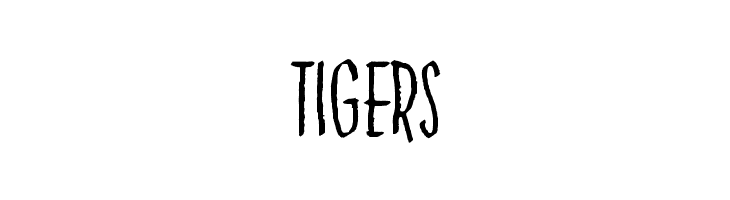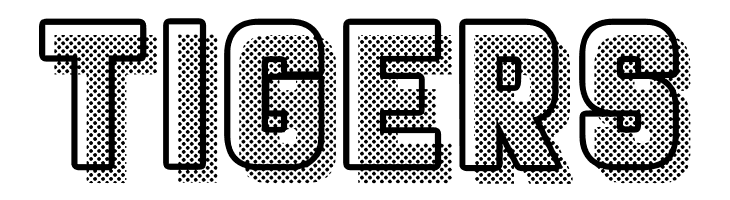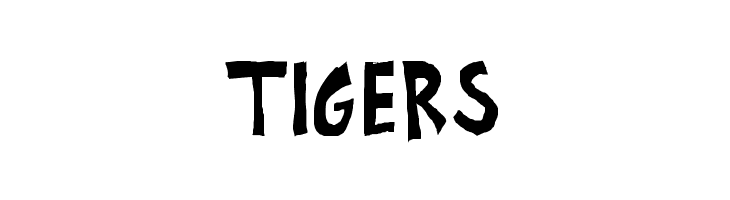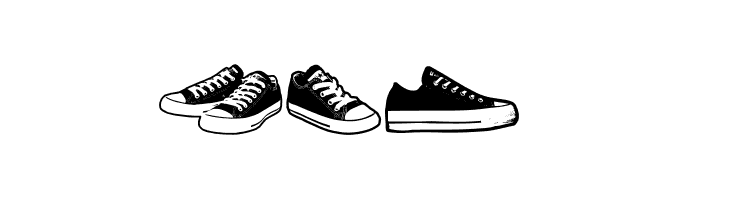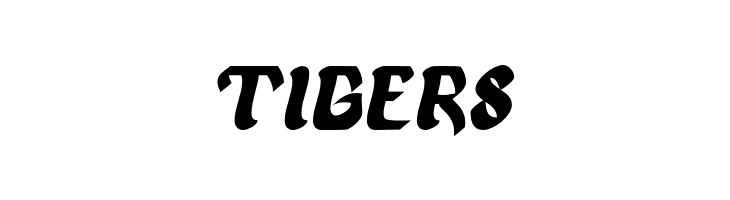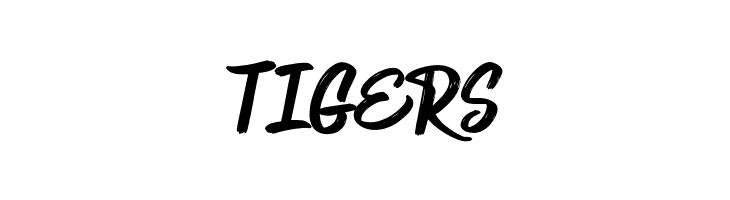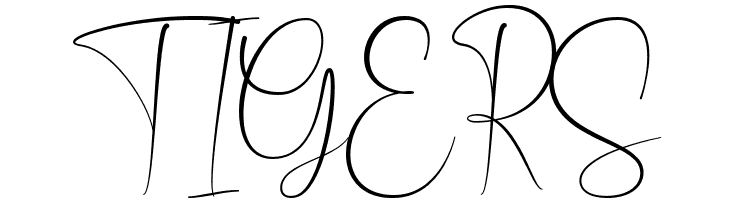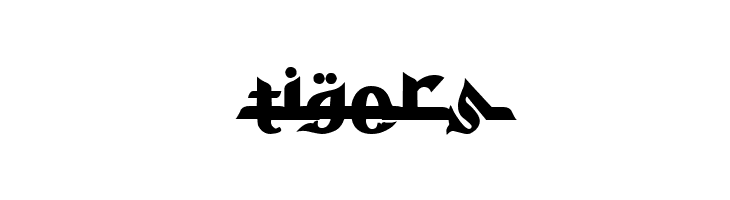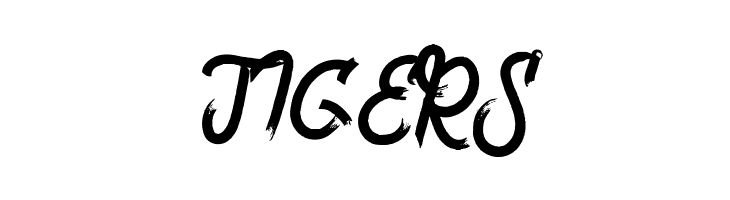
A bold, decorative font with modern and traditional influences.
A bold, expressive brush script font with a modern, handwritten style.
A whimsical font with heart-shaped elements, perfect for romantic designs.
A bold, distressed font with a torn, rugged appearance.
A bold, distressed font with a vintage, rugged texture.
A bold, geometric font with a futuristic and edgy design.
A modern, dot-based font with a digital, geometric style.
A modern, dot-based font with a playful and digital aesthetic.
A playful, rounded font with bold, smooth curves and consistent spacing.
A bold, rugged font with a hand-drawn, dynamic style.
A bold, jagged, and dynamic font with a hand-cut appearance.
A bold, italicized font with a dynamic, brush-like style.
A bold, angular, and italicized font with a dynamic, edgy style.
A playful, handwritten font with fluid, interconnected strokes and a whimsical charm.
A chaotic, hand-drawn font with a graffiti-like style.
A bold, hand-drawn font with a sketch-like, dynamic appearance.
A bold, brush-style font with dynamic and expressive strokes.
A bold, brush-style font with dynamic, hand-drawn strokes.
A bold, distressed font with a cut-out, ransom note style.
A hand-drawn, playful font with irregular strokes and a vintage-modern blend.
Hand-drawn sneaker illustrations form each character.
A bold, vintage-style decorative font with textured, three-dimensional characters.
A bold, decorative font with a retro halftone pattern, perfect for eye-catching designs.
A bold, brush-style font with dynamic, flowing strokes and artistic flair.
An elegant, whimsical script font with flowing, interconnected strokes.
A bold, dynamic script font with calligraphic influences and sharp edges.
An elegant, flowing script font with a modern, handwritten style.
A graceful script font with decorative swashes and flowing cursive style.
) ) A bold, slanted font with dynamic and energetic characteristics.
A bold, slanted font with a dynamic and modern style.
A dynamic, slanted script font with smooth, flowing strokes.